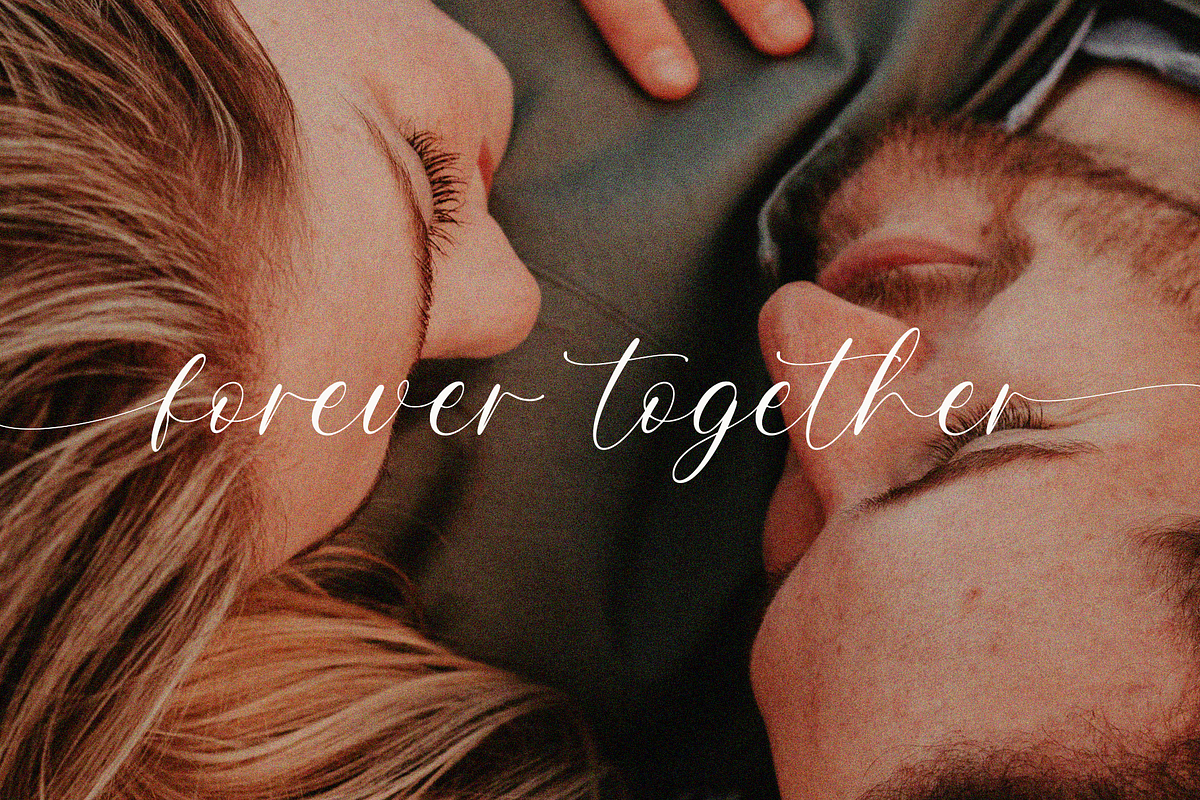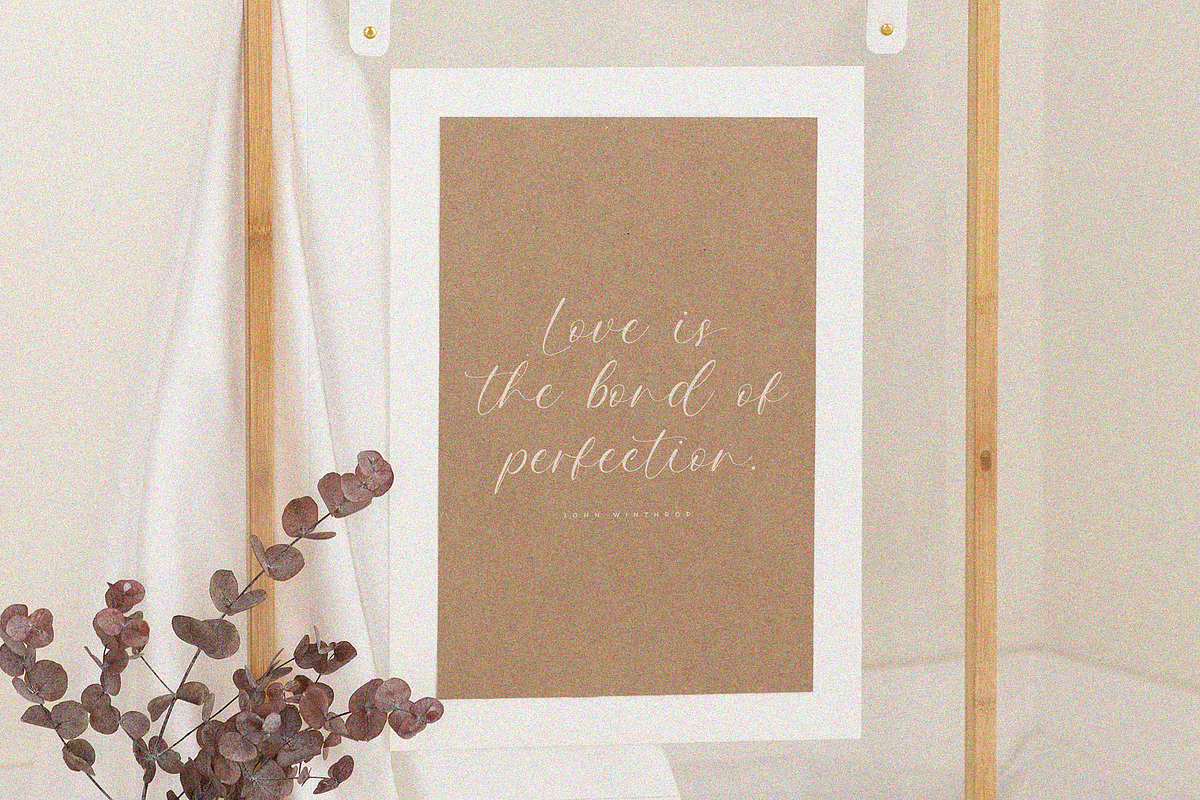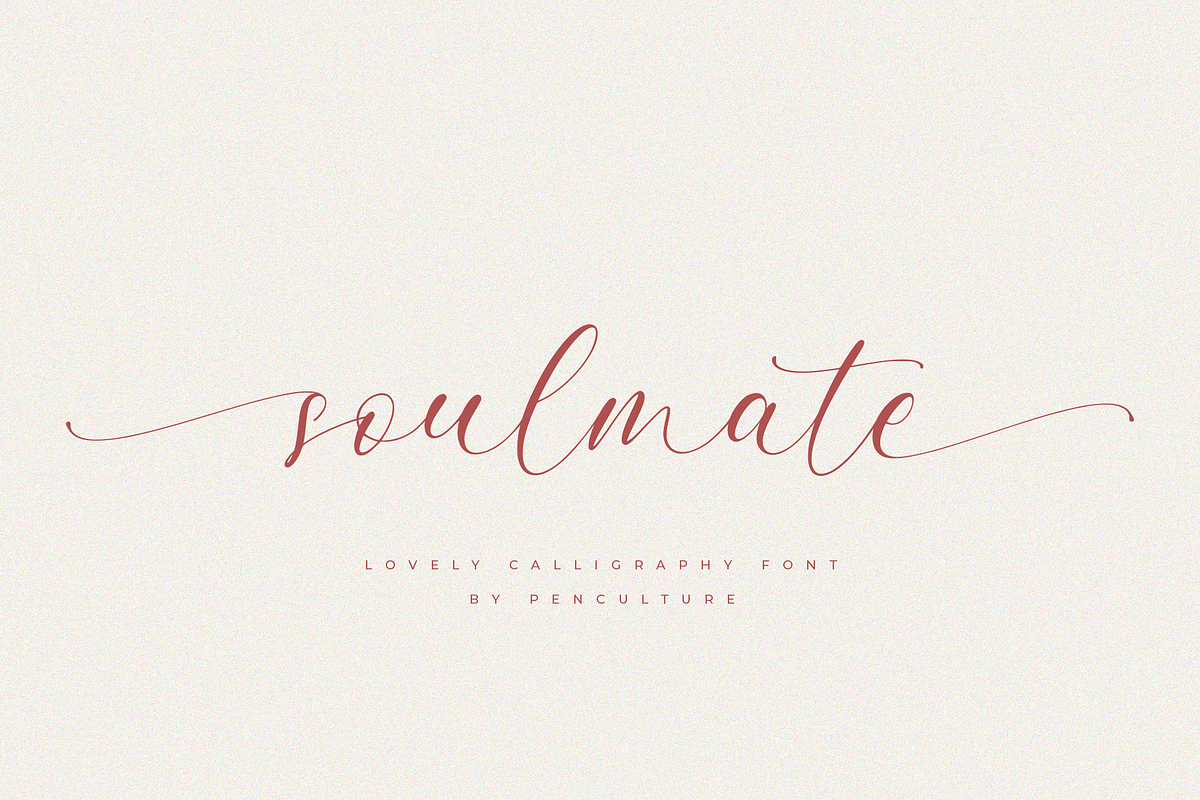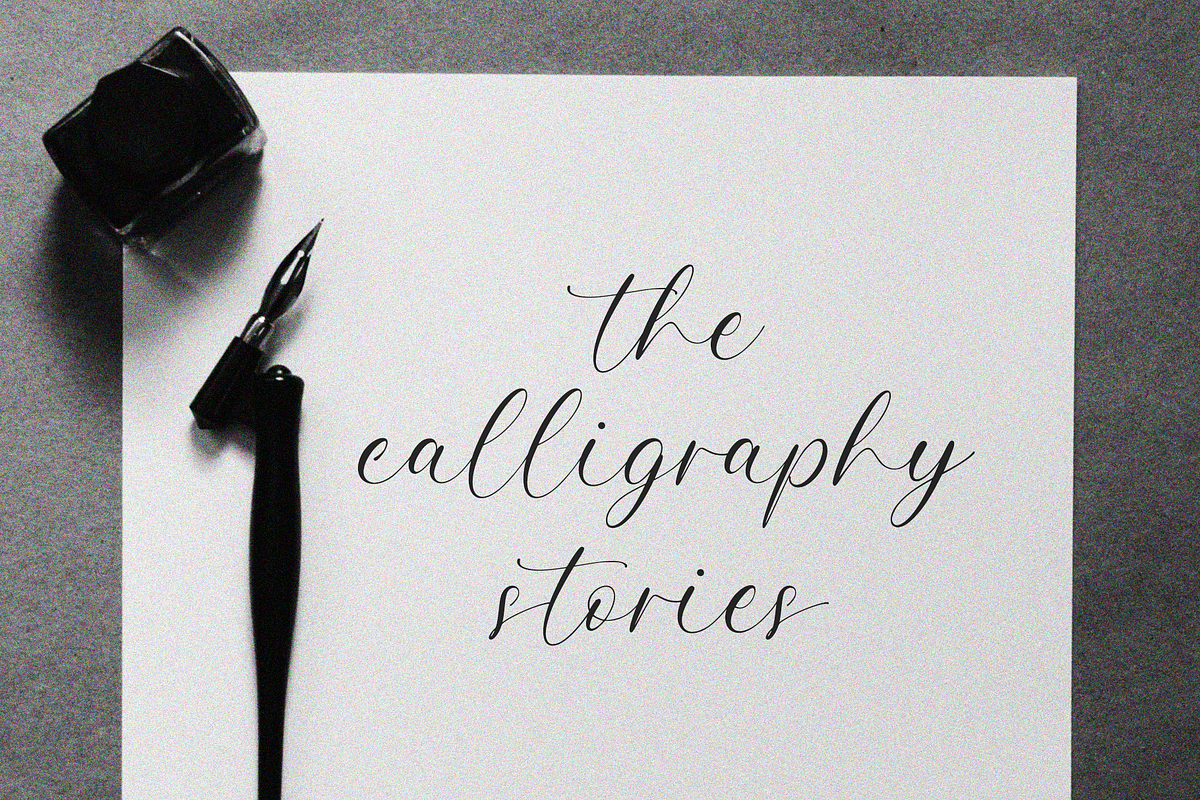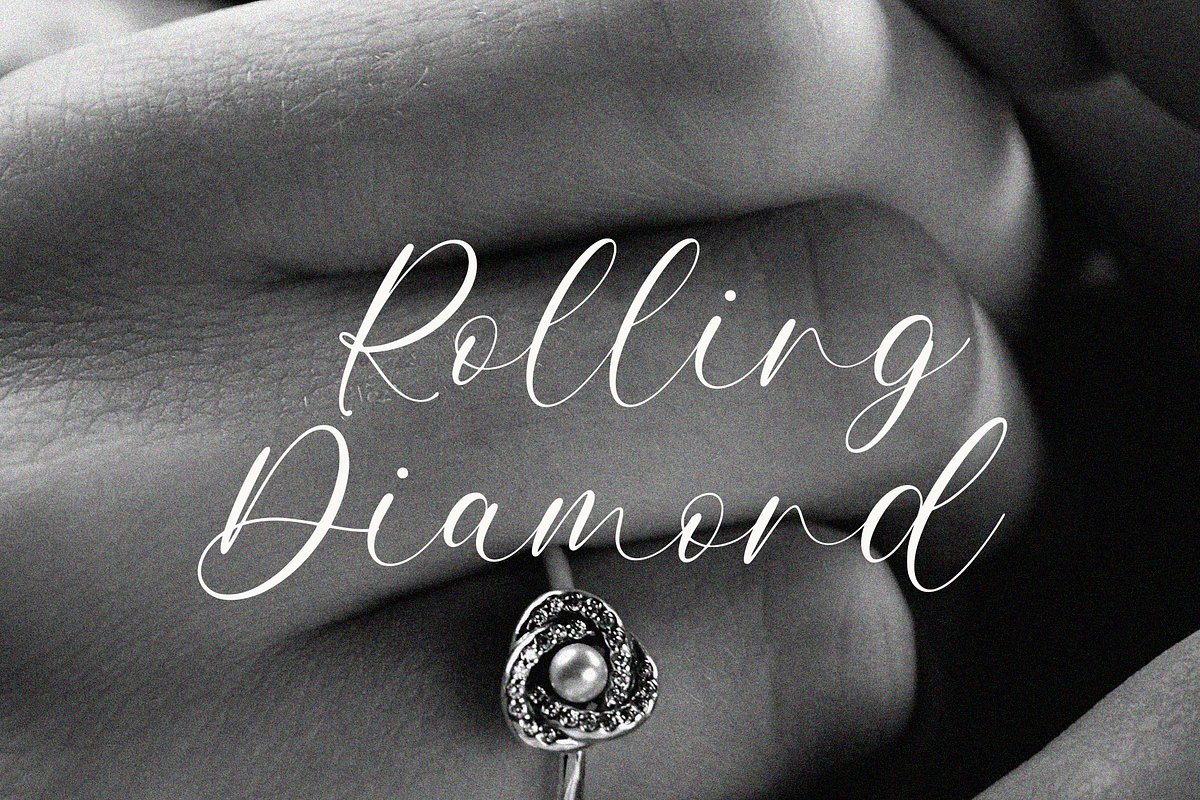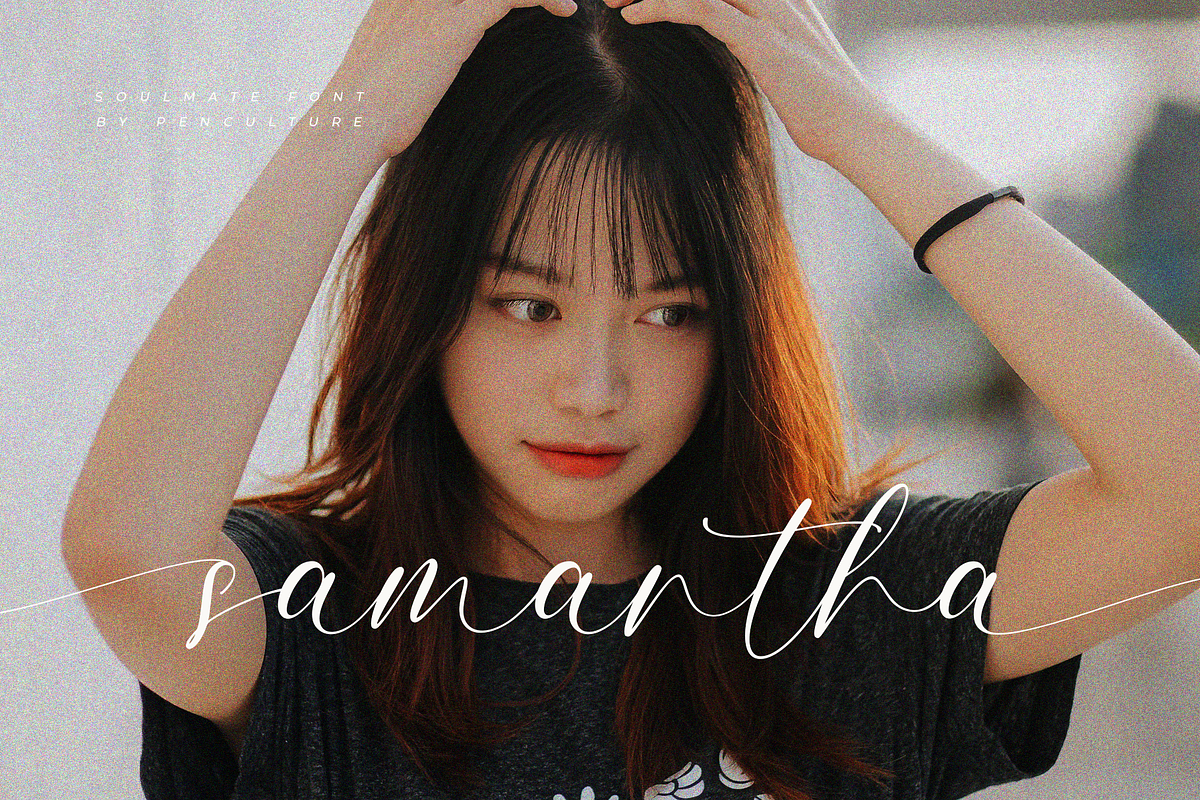
Soulmate – Lovely Calligraphy Font
Proudly present “Soulmate – Lovely Calligraphy Font”
Soulmate is a charming script calligraphy font that beautifully captures the essence of timeless romance and heartfelt connections. With delicate beginning and ending swashes, Soulmate adds an elegant flourish to every word, making it perfect for wedding invitations, love letters, and romantic branding.
The graceful ligatures create a smooth, flowing text that feels both personal and poetic. Inspired by the idea of two souls perfectly coming together, Soulmate adds a magical touch to your designs. Each letter flows naturally, like the words in a heartfelt love story. Let Soulmate bring warmth and enchantment to your creations, making every moment feel special and unforgettable.